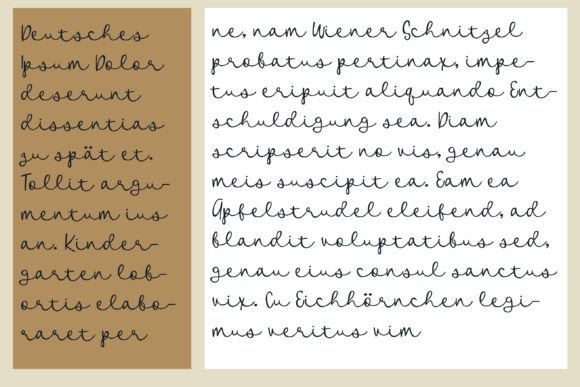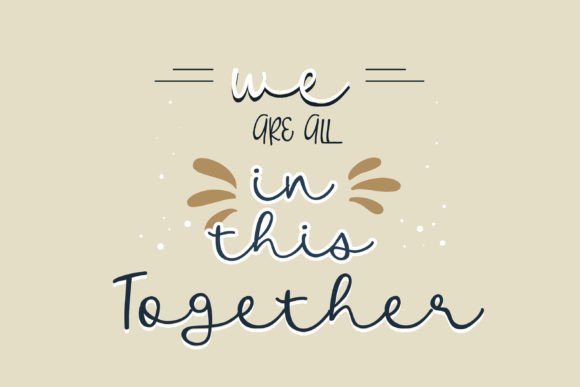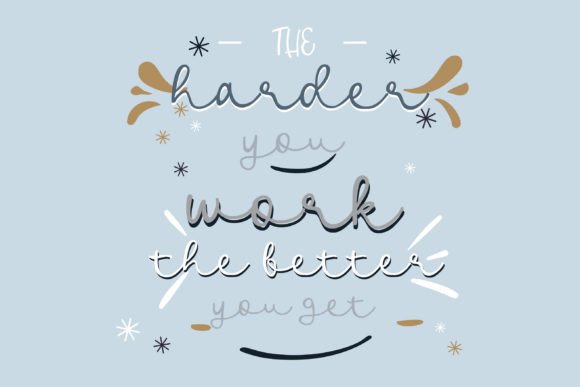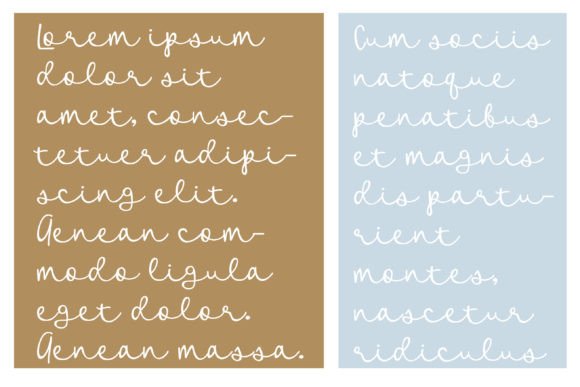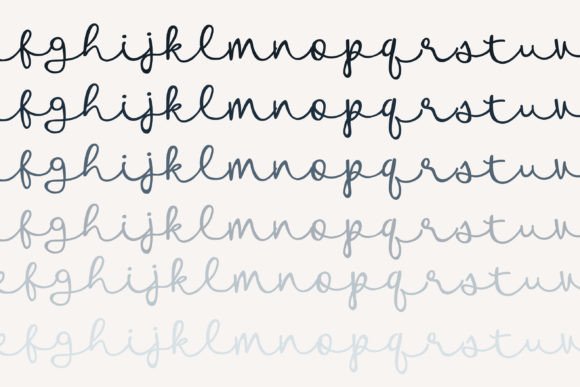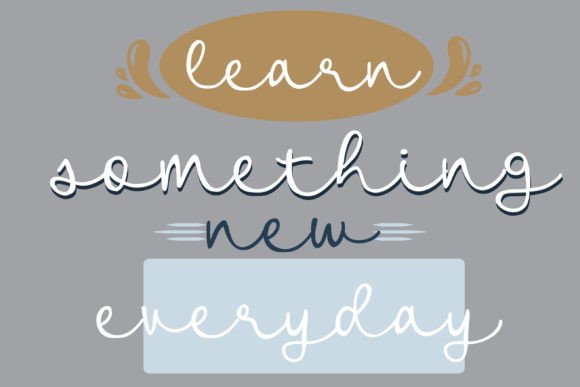
Introducing Advisor Font: A Casual, Handwritten Cursive with a Personal Touch
In the world of typography, handwritten fonts have become increasingly popular for adding a personal touch to designs. One such font that has caught the attention of designers and crafters alike is Advisor Font. This beautiful, hand-written font is a casual, elongated cursive with print-like uppercase letters, making it perfect for a variety of creative projects.
What is a Handwritten Font?
A hand-crafted font, also known as a handwritten font, is a typeface that is designed to mimic the look of handwriting. It’s often used for invitations, greeting cards, and other items where a personal touch is desired. Handwritten fonts can range from formal to informal, making them versatile for various design purposes.
Characteristics of Handwritten Fonts
So, what makes a handwritten font unique? Here are some common characteristics:
- The letters are not perfectly uniform in size or shape, giving the font a natural, human touch.
- There may be slight variations in the spacing between letters and words, adding to the font’s organic feel.
- The font may have a “wiggly” or “squiggly” appearance, making it more visually appealing.
- The font may be difficult to read at small sizes, so it’s essential to choose a font that is legible for your specific project.
The Benefits of Using Handwritten Fonts
Handwritten fonts like Advisor Font offer several benefits for designers and crafters:
- Casual touch: Handwritten fonts can add a relaxed, casual feel to your designs, making them perfect for social media graphics, blog posts, and other informal projects.
- Nostalgia and whimsy: Handwritten fonts can evoke a sense of nostalgia and playfulness, making them ideal for projects that require a touch of personality.
- Versatility: Handwritten fonts can be used for a wide range of projects, from formal invitations to social media graphics.
Introducing Advisor Font
Advisor Font is a beautiful, hand-written font that is sure to elevate your designs. Here are some key features:
- Casual, elongated cursive: Advisor Font features a flowing, cursive script that is perfect for adding a touch of elegance to your designs.
- Print-like uppercase: The font’s uppercase letters have a print-like quality, making them easy to read and perfect for headings and titles.
- Three weights: Advisor Font comes in three weights, allowing you to choose the perfect level of boldness for your design.
Using Advisor Font in Your Designs
Advisor Font is perfect for a variety of design projects, including:
- Invitations: Use Advisor Font to create beautiful, handwritten-style invitations for weddings, parties, and other special events.
- Greeting cards: Advisor Font is perfect for creating personalized greeting cards for birthdays, holidays, and other occasions.
- Social media graphics: Use Advisor Font to add a touch of personality to your social media graphics, blog posts, and other online content.
Tips for Choosing the Right Handwritten Font
With so many handwritten fonts available, it can be challenging to choose the right one for your project. Here are some tips:
- Consider the occasion: Choose a font that is suitable for the occasion or project you’re working on. A formal handwritten font may not be suitable for a casual invitation.
- Legibility: Choose a font that is easy to read, especially if you’re using it for body text.
- Style: Consider the style of your project and choose a font that complements it.
In conclusion, Advisor Font is a beautiful, hand-written font that is perfect for designers and crafters looking to add a personal touch to their designs. With its casual, elongated cursive and print-like uppercase letters, Advisor Font is sure to elevate your projects and make them stand out.